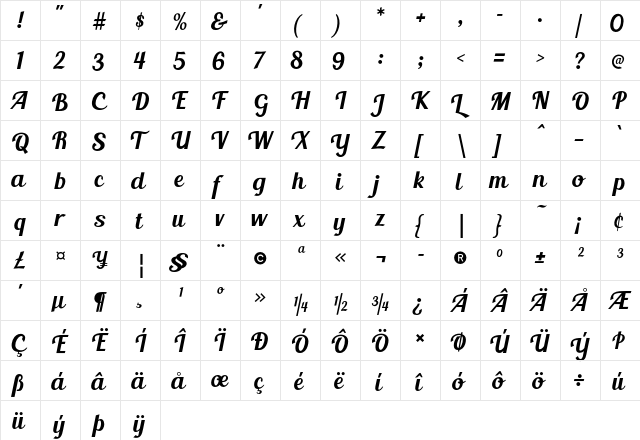
Blenda Script Regular
Design Context for Blenda Script Typeface
Blenda Script flows with the natural rhythm of handwritten lettering, making it ideal for designs that call for warmth and personal expression.
Font Pairing: Combine Blenda Script with a simple geometric sans for maximum contrast — the tension between flowing curves and clean structure is a classic typographic pairing.
Pro Tip: Pair Blenda Script with a clean sans-serif for supporting text. The contrast between fluid script and geometric structure creates an elegant typographic hierarchy.